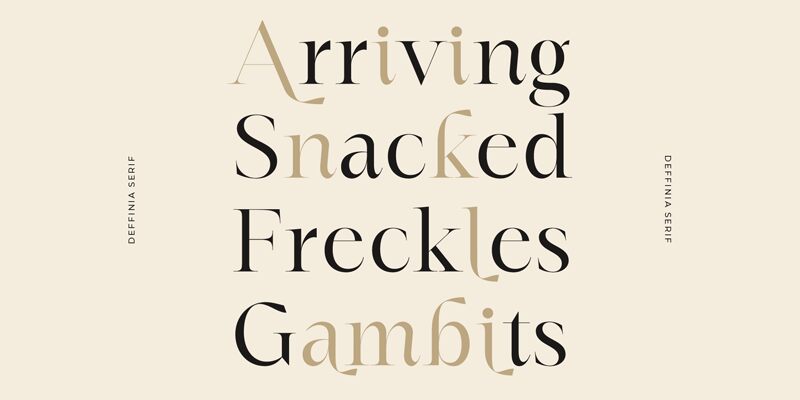
Deffinia font by Glyphofik Studio is a modern and refined serif font designed to bring elegance into your written and printed content. The designer focused on achieving a sophisticated stylish look that can transform the texts you read, which makes it suitable for professional and artistic use.
Being free, Deffinia is perfect for all sorts of typography purposes such as books, book covers, magazines, invitations, wedding cards, branding items, packaging designs, posters, social media posts.
This font offers a limited selection of characters and glyphs, including uppercase letters, lowercase letters, numbers, and a logo.